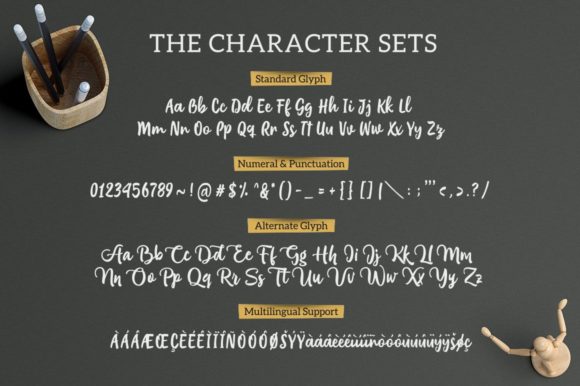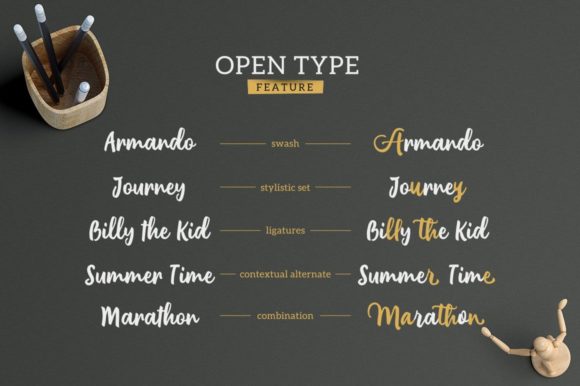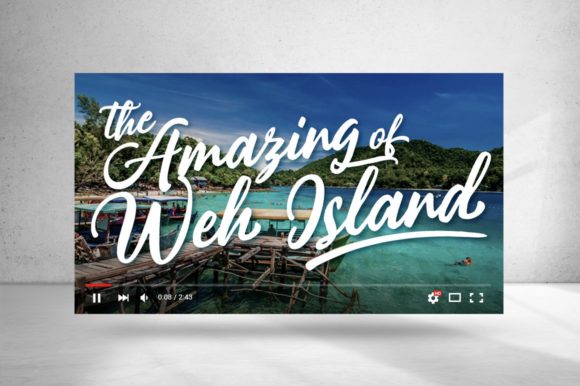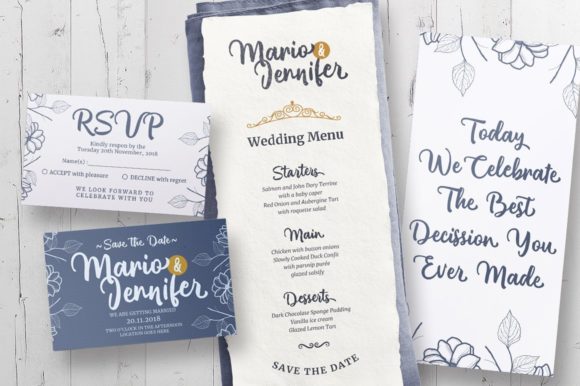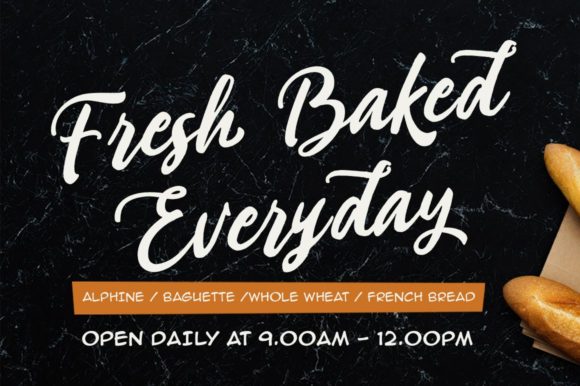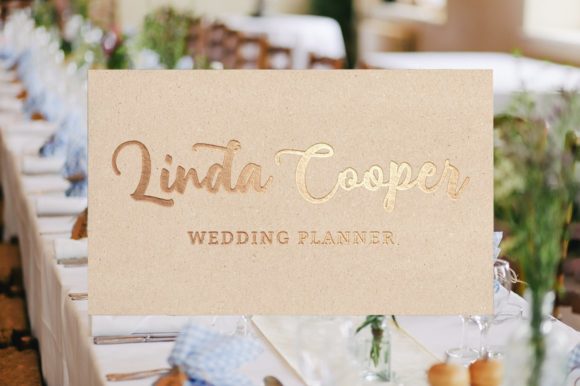
Introducing Believer Font: The Perfect Handwritten Font for Your Creative Projects
Are you a designer or crafter looking for a unique and eye-catching font to elevate your creative projects? Look no further than Believer Font, a bold and fun handwritten font that’s perfect for a variety of applications. In this article, we’ll explore the features and benefits of Believer Font, and show you how it can add a natural and personal touch to your designs.
What is Believer Font?
Believer Font is a carefully crafted handwritten font that’s designed to bring a sense of warmth and personality to your designs. With its bold and playful strokes, this font is perfect for making a statement and grabbing attention. Whether you’re creating a headline, logo, or title, Believer Font is sure to impress.
Key Features of Believer Font
- Bold and Fun Handwritten Style: Believer Font features a unique and playful handwritten style that’s perfect for creating eye-catching designs.
- Suitable for a Variety of Applications: This font is versatile and can be used for a range of projects, including headlines, logos, cover titles, wedding invitations, greeting cards, merchandise, and more.
- Natural Feeling: Believer Font has a natural, hand-crafted feel that’s perfect for designs that require a personal touch.
- Watercolor-Based Design: This font pairs perfectly with watercolor-based designs, adding a touch of whimsy and charm.
Believer Font is a dream come true for designers and crafters who want to add a personal touch to their creations. With its bold and playful style, this font is perfect for:
- Headlines and Titles: Use Believer Font to create eye-catching headlines and titles that grab attention.
- Logos and Branding: Create a unique and memorable logo with Believer Font that’s sure to stand out.
- Wedding Invitations and Greeting Cards: Add a personal touch to your wedding invitations and greeting cards with this beautiful handwritten font.
- Merchandise and Products: Use Believer Font to create eye-catching merchandise and products that showcase your brand’s personality.
Why Choose Believer Font?
With so many fonts to choose from, why should you choose Believer Font? Here are just a few reasons:
- Unique and Eye-Catching: Believer Font is a one-of-a-kind font that’s sure to grab attention and make your designs stand out.
- Versatile: This font can be used for a wide range of projects, from digital designs to print materials.
If you’re looking for a bold and fun handwritten font that’s perfect for a variety of creative projects, look no further than Believer Font. With its unique and eye-catching style, this font is sure to add a natural and personal touch to your designs. Whether you’re a designer or crafter, Believer Font is the perfect choice for anyone looking to elevate their creative projects.